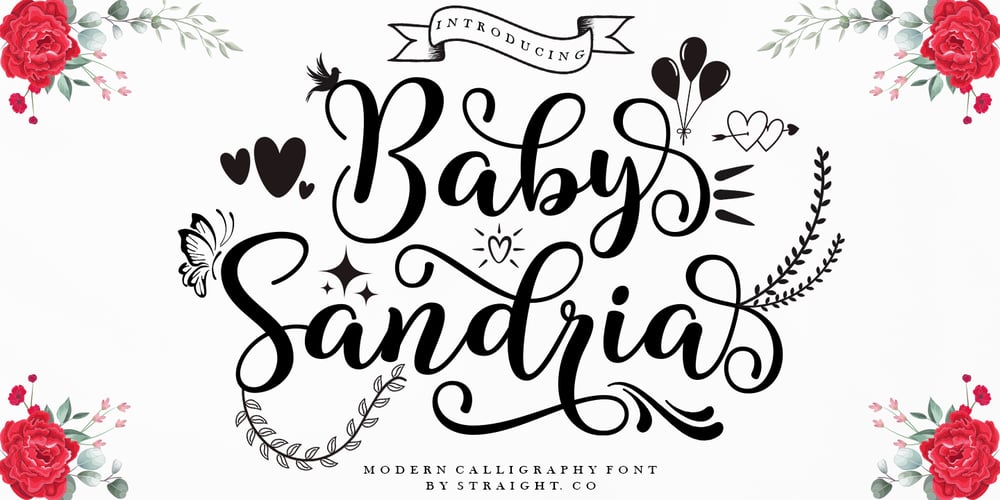
Baby Sandria Font Family was designed by Imam Muhajir and published by Straight.Co. Baby Sandria contains 2 styles and family package options. Baby Sandria is a delicate, elegant and flowing handwritten font. It has beautiful and well balanced characters and as a result, it matches a wide pool of designs. Baby Sandria features a varying baseline, smooth lines, gorgeous glyphs and stunning alternates.Add it to your most creative ideas and notice how it makes them come alive!